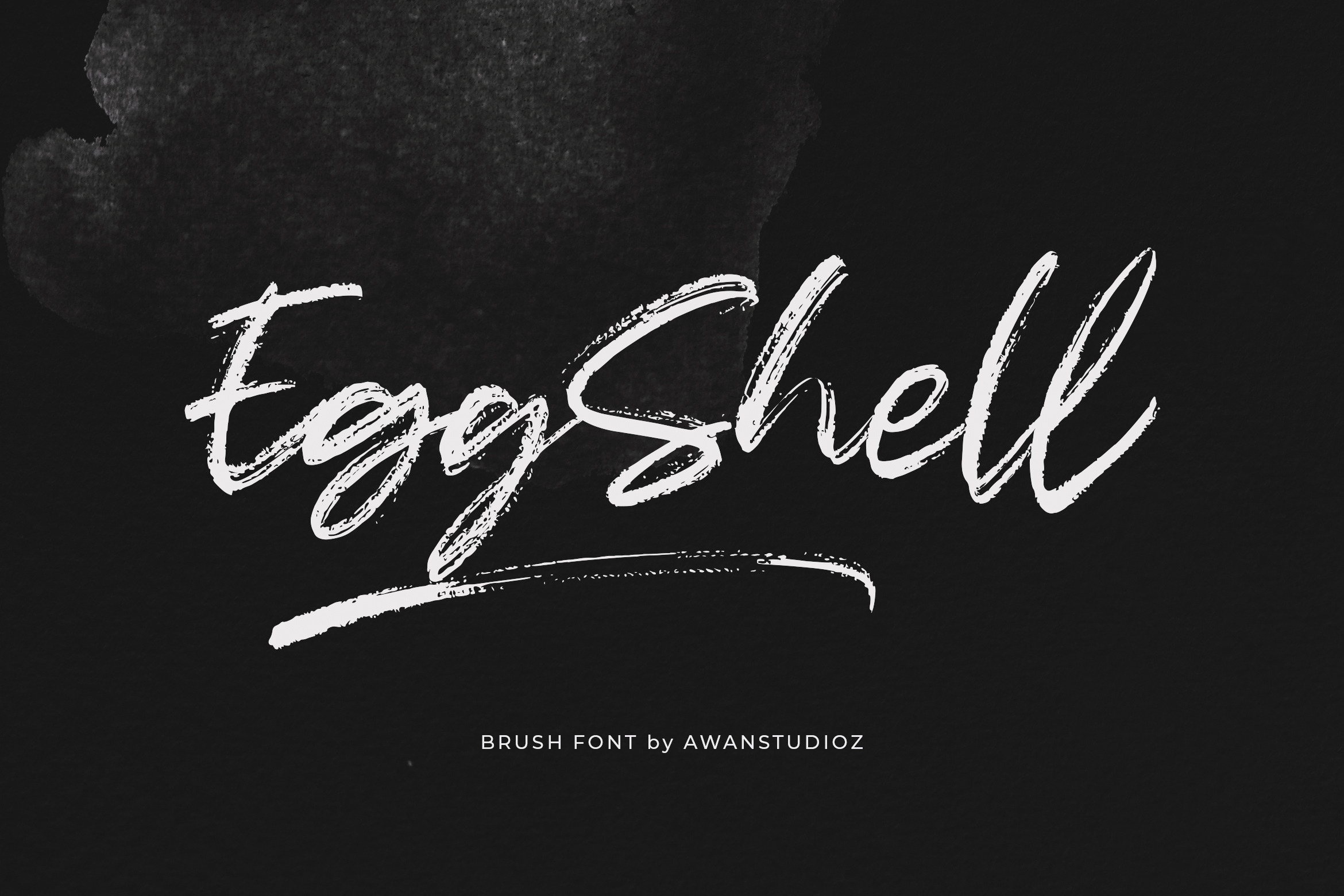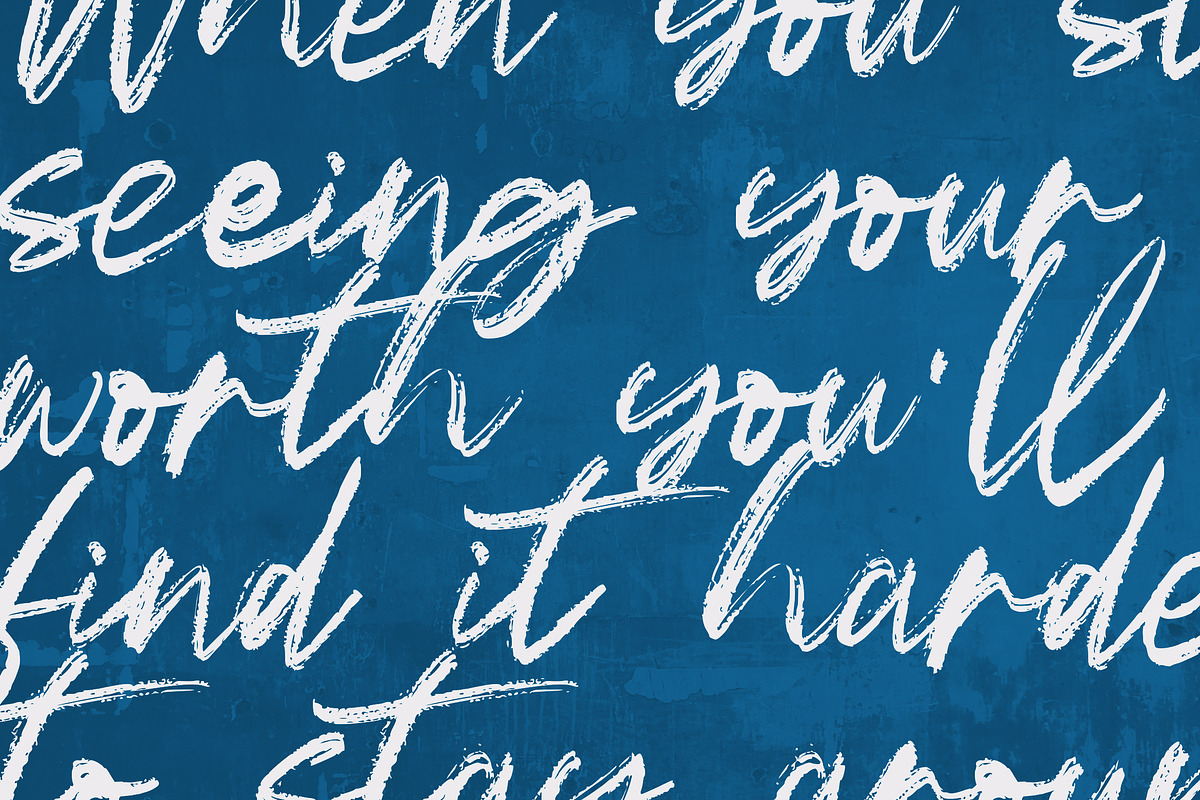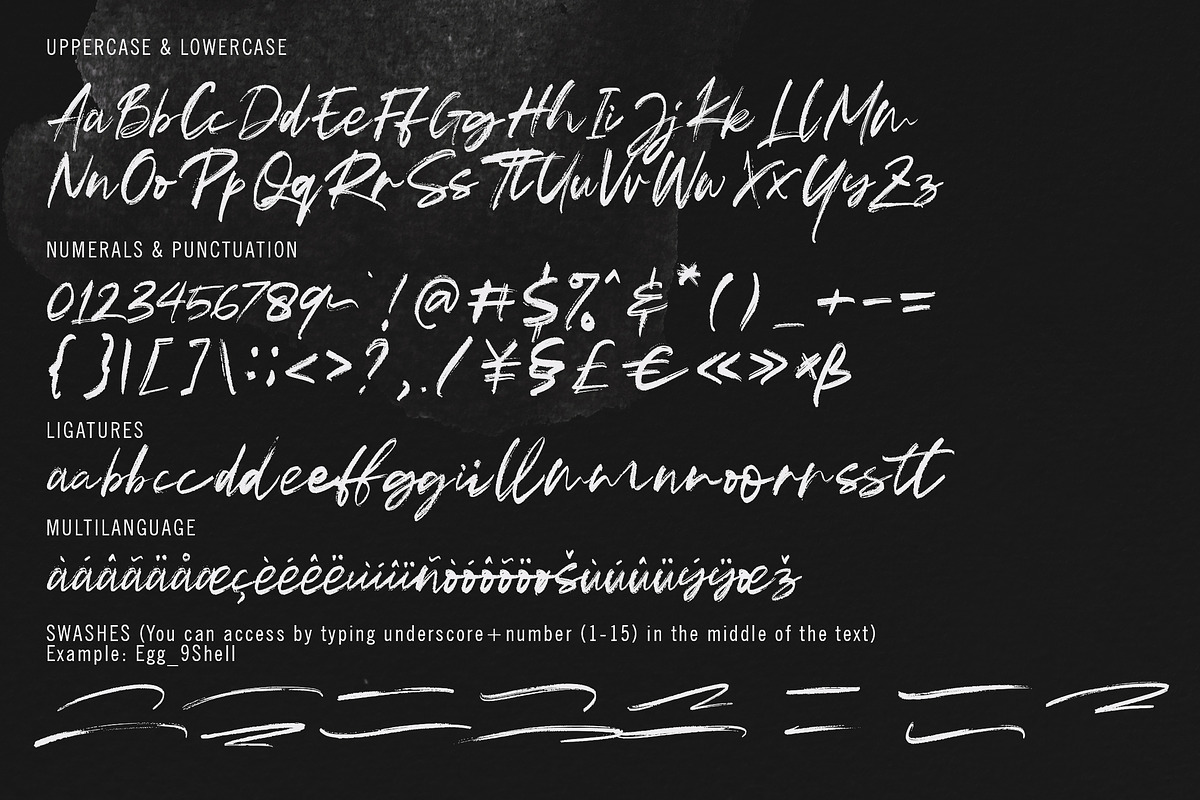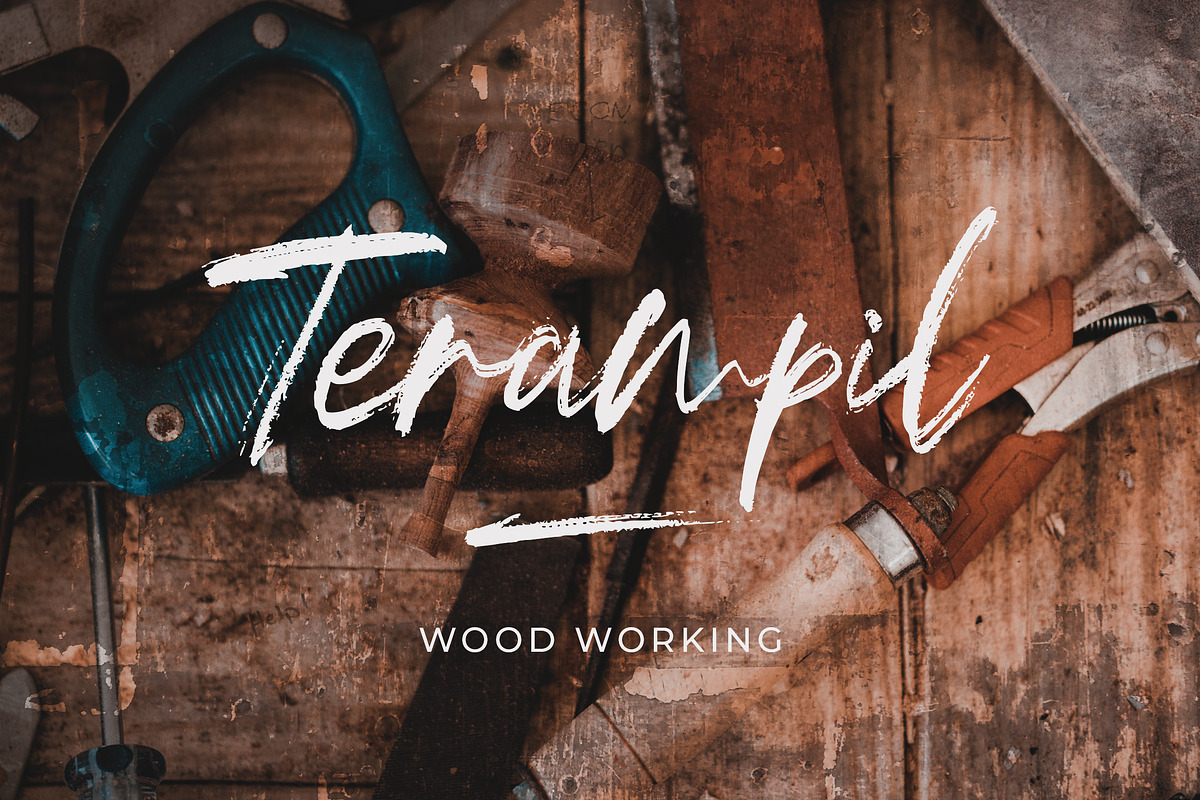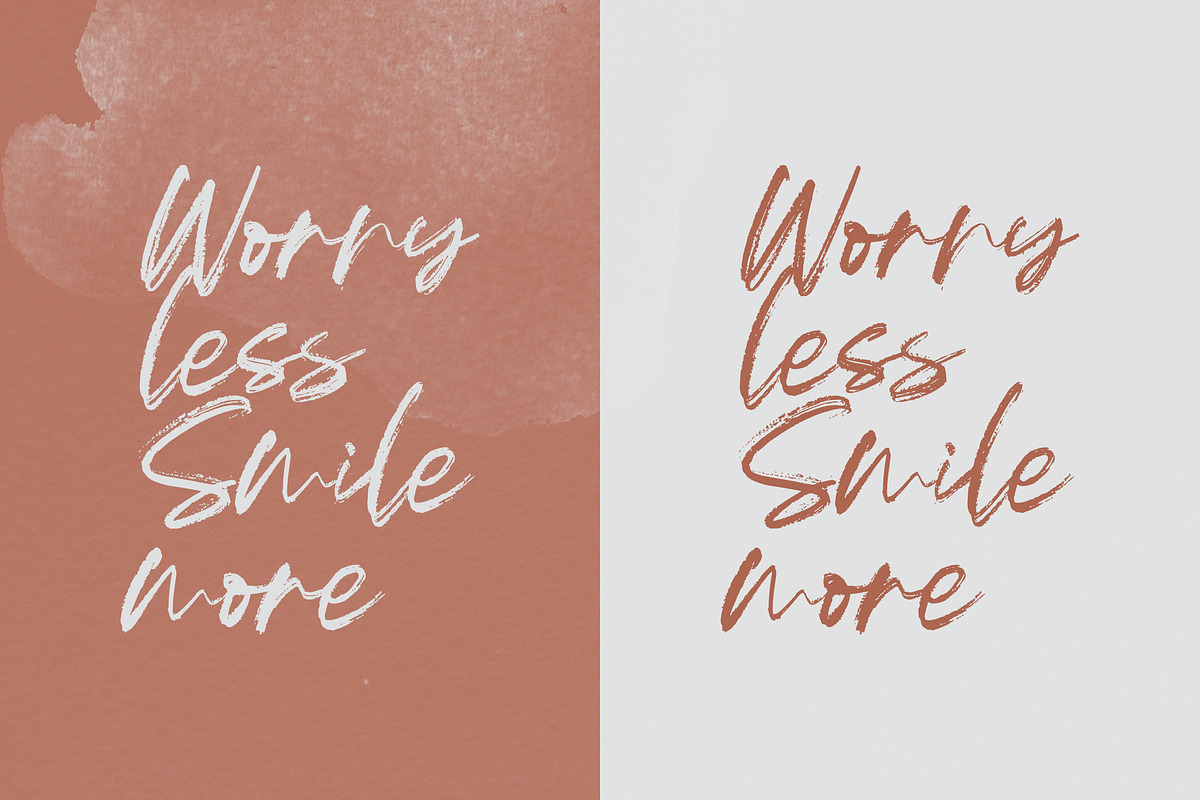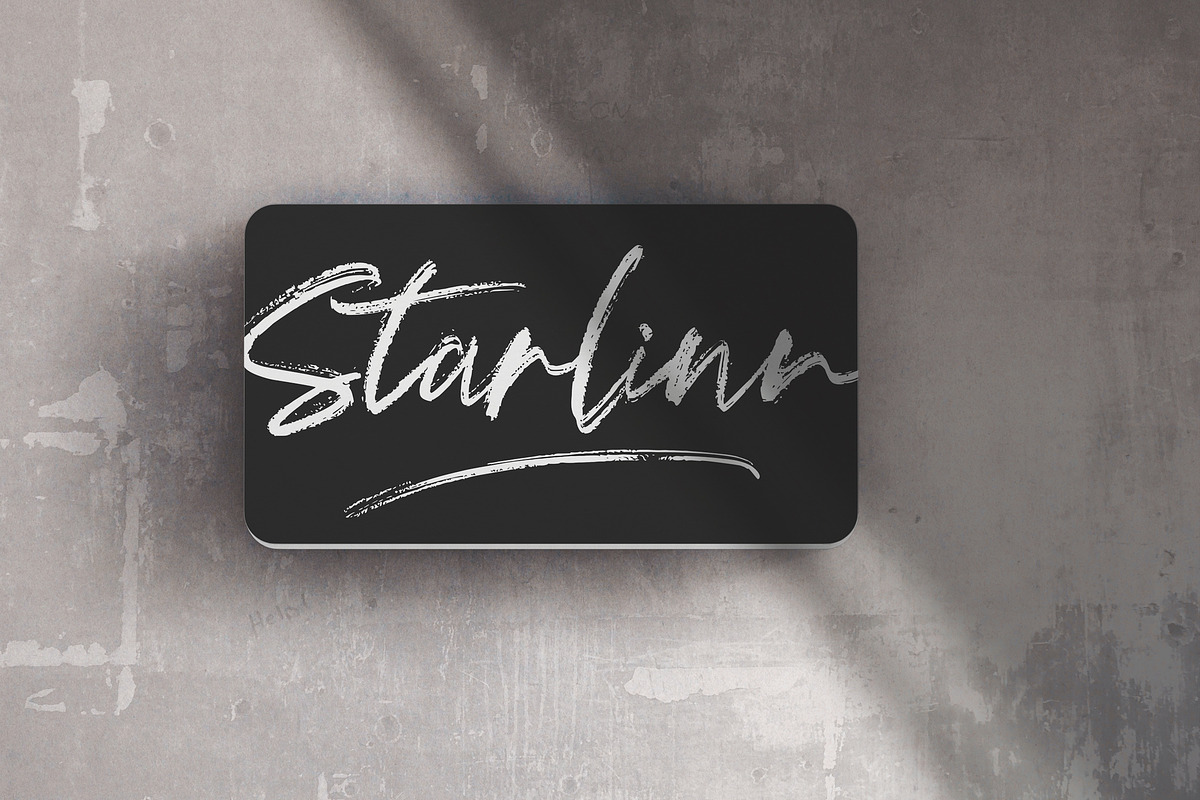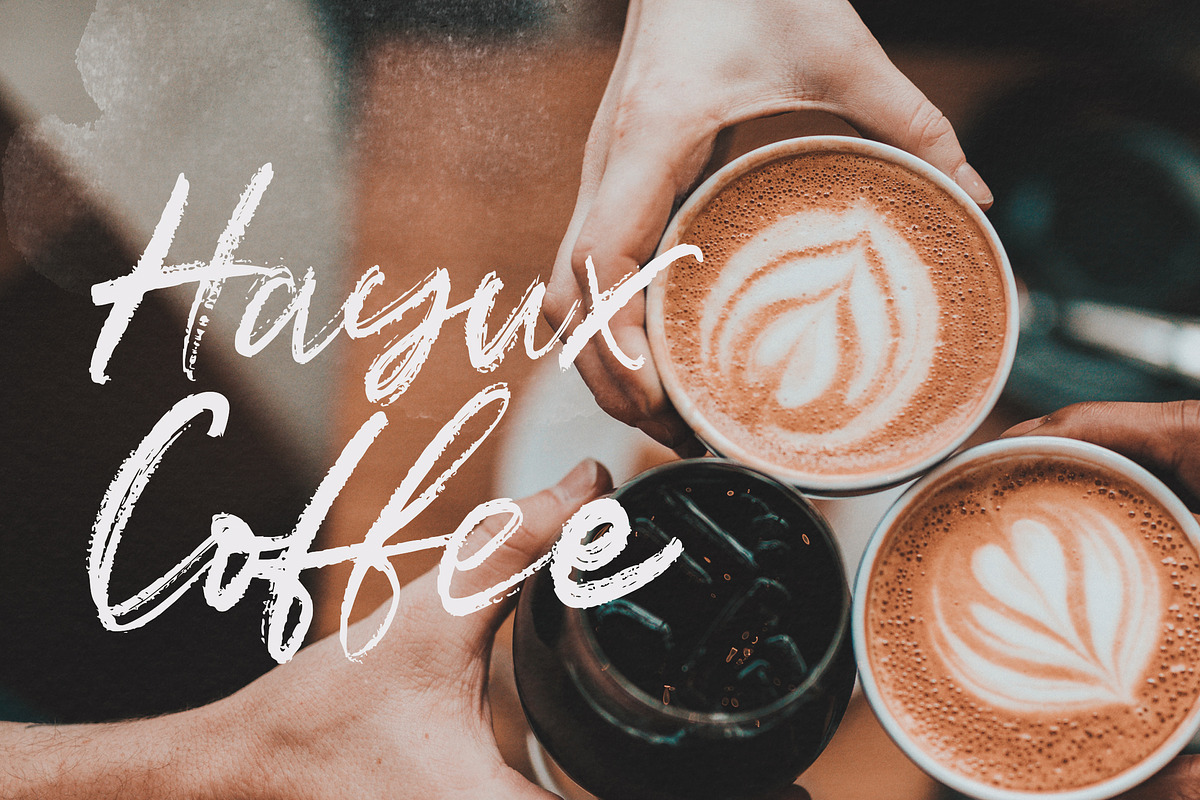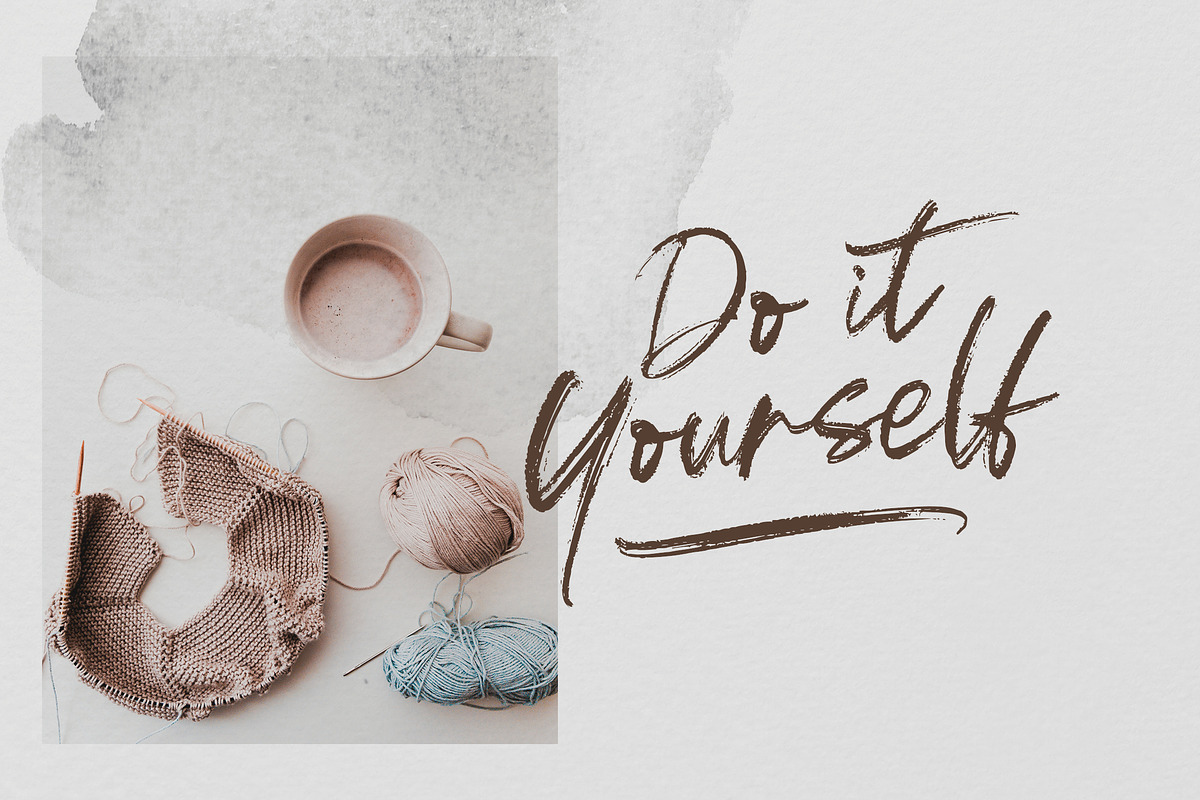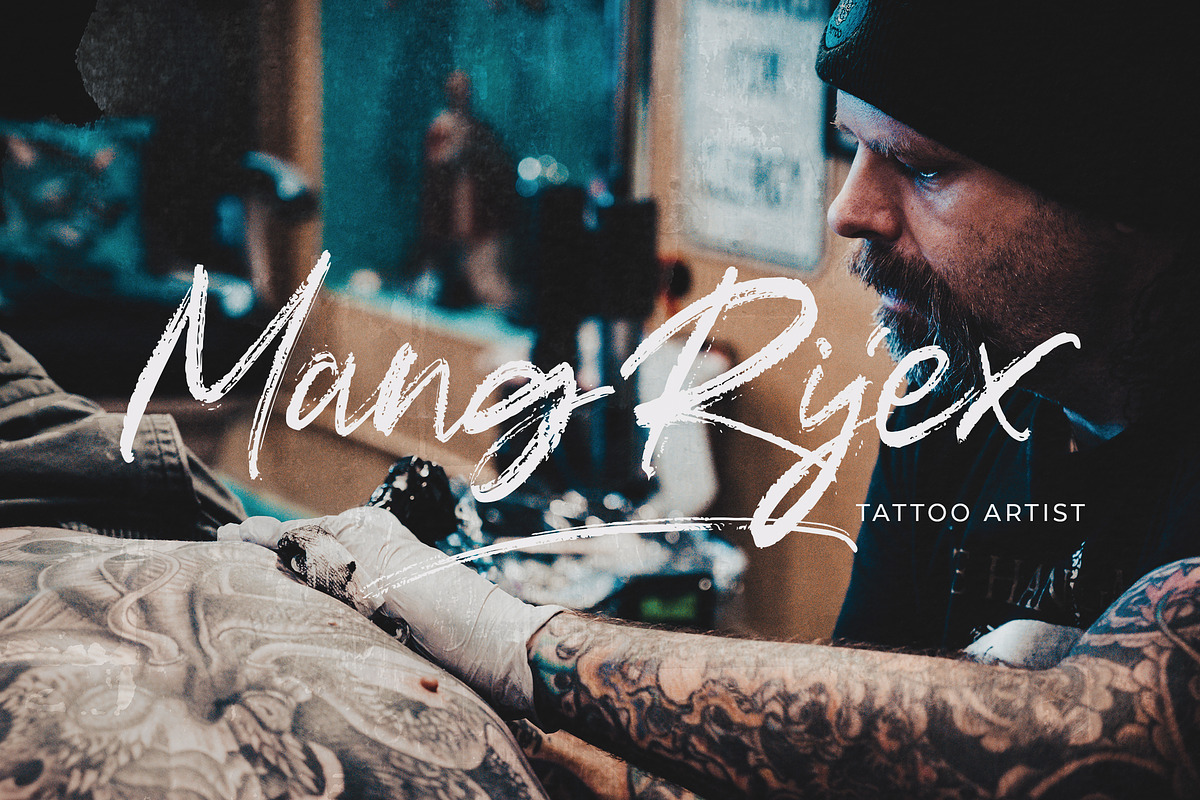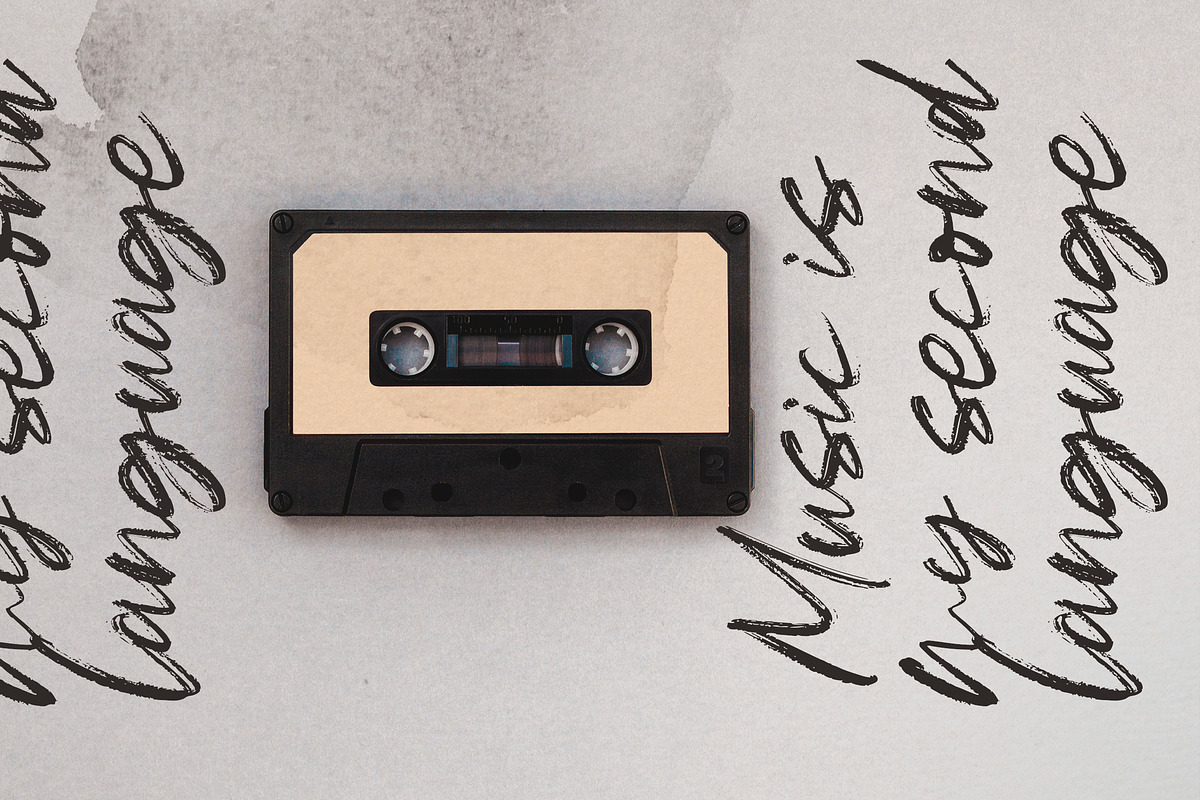
EggShell - Brush Font
EggShell is a great textured handwritten brush font. It will easily turn any design project into a stand-out!
- Swashes (You can access by typing underscore+number (1-15) in the middle of the text. Example: Egg_9Shell